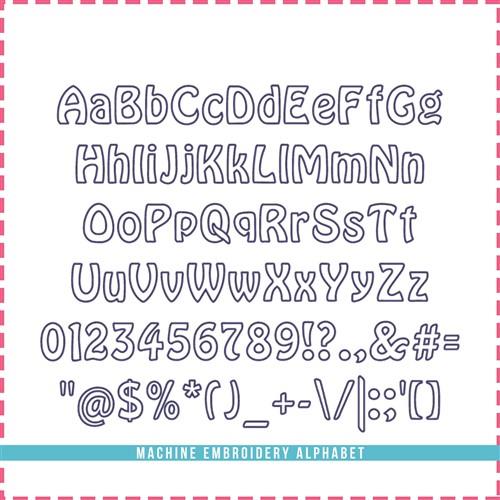
Maya Kreations is happy to present Loren Font Embroidery Font - Classic Block Style - PES, DST & 8 formats machine embroidery font which has Classic block embroidery font with rounded edges, perfect for playful designs on t-shirts and home decor. Available in PES, DST, and 8 additional formats. included. If you would like to view more embroidery fonts and alphabets please search our embroidery fonts page.